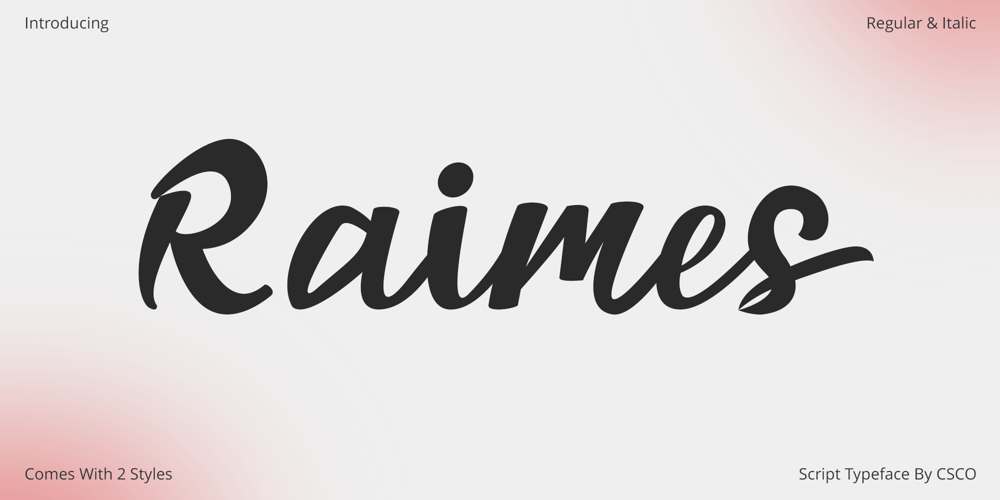
Raimes Font Family was designed by Trio Nazzar Saputra, Wahyu Hadi Yuana and published by Craft Supply Co. Raimes contains 2 styles and family package options. Introducing Raimes – Script TypefaceCharming and Playful ScriptMeet Raimes, the Script Typeface that effortlessly infuses charm and playfulness into your designs.Whimsical EleganceRaimes boasts a whimsical elegance that’s perfect for a wide range of creative projects, adding a delightful touch of fun to your content.Versatile for Creative ProjectsRaimes’ versatility shines through, making it an ideal choice for various creative endeavors, including branding, invitations, and more.A Script Typeface That DelightsRaimes ensures that your content is not only visually pleasing but also engaging. It leaves a memorable and delightful impression on your audience.In ConclusionIn summary, Raimes – Script Typeface is the font that will bring charm and playfulness to your design projects. Its versatility makes it a great choice for branding, invitations, and a variety of creative endeavors. Raimes captivates your audience, leaving them with a delightful and memorable experience, ensuring accessibility to a broad readership.